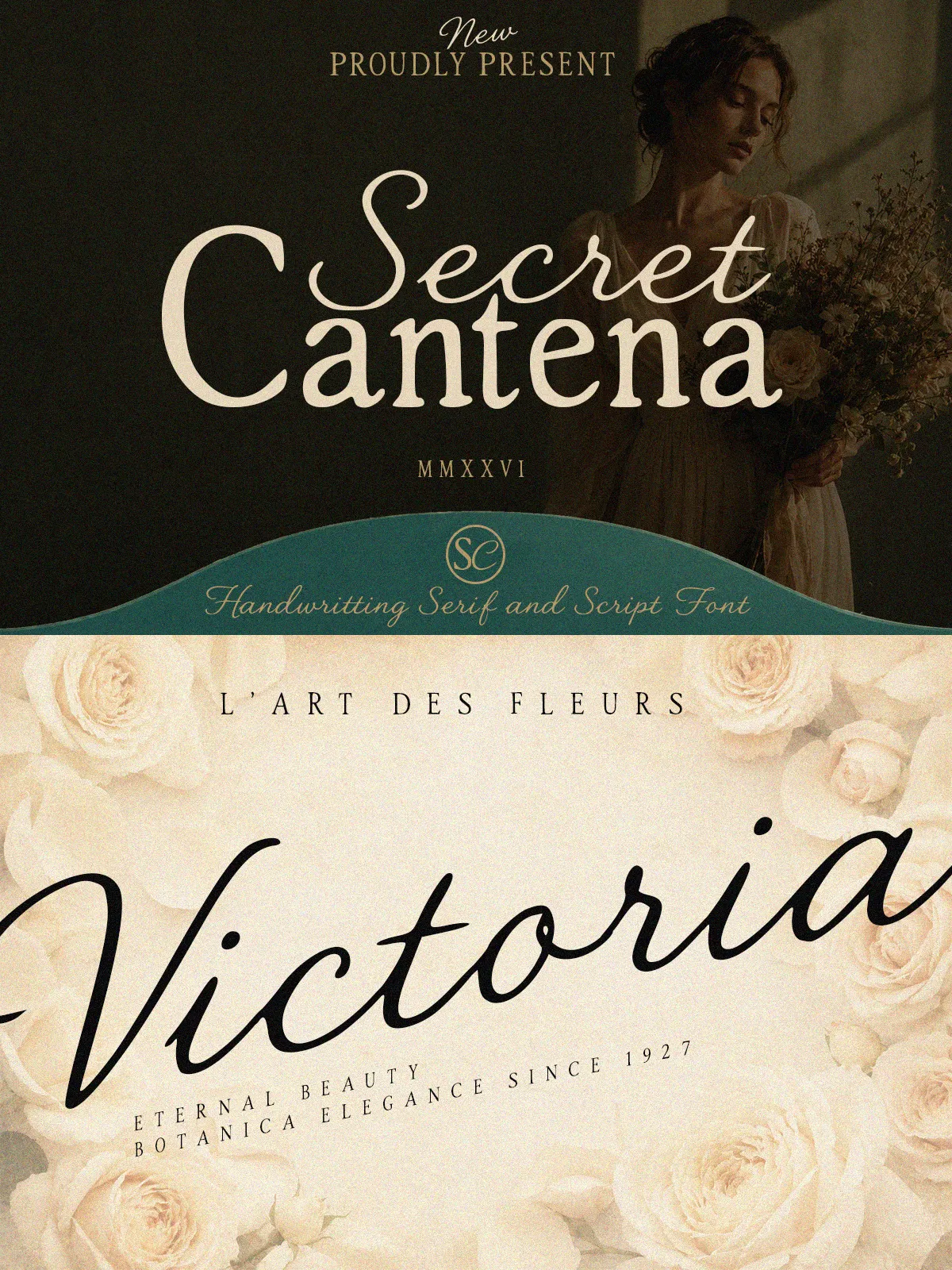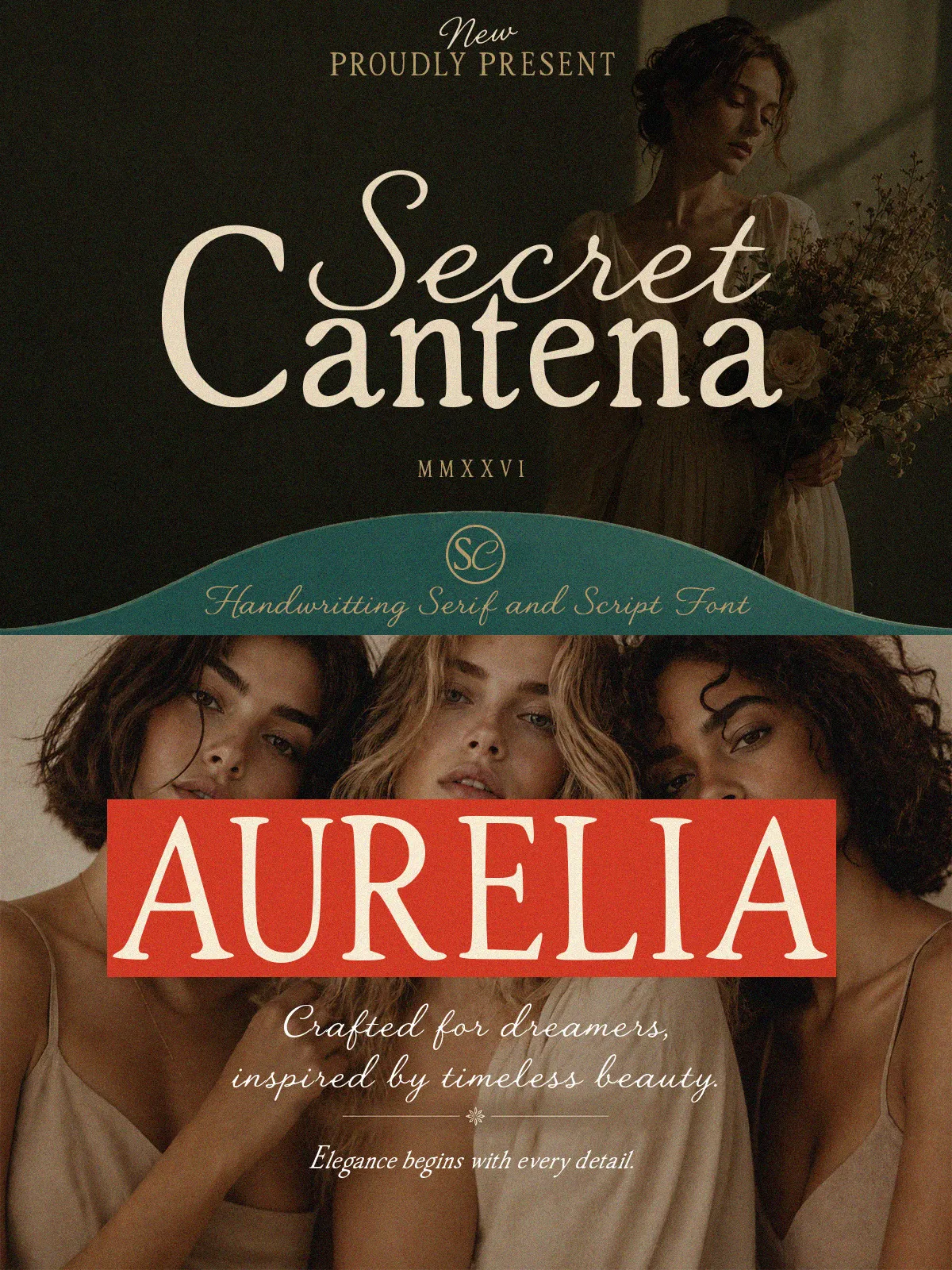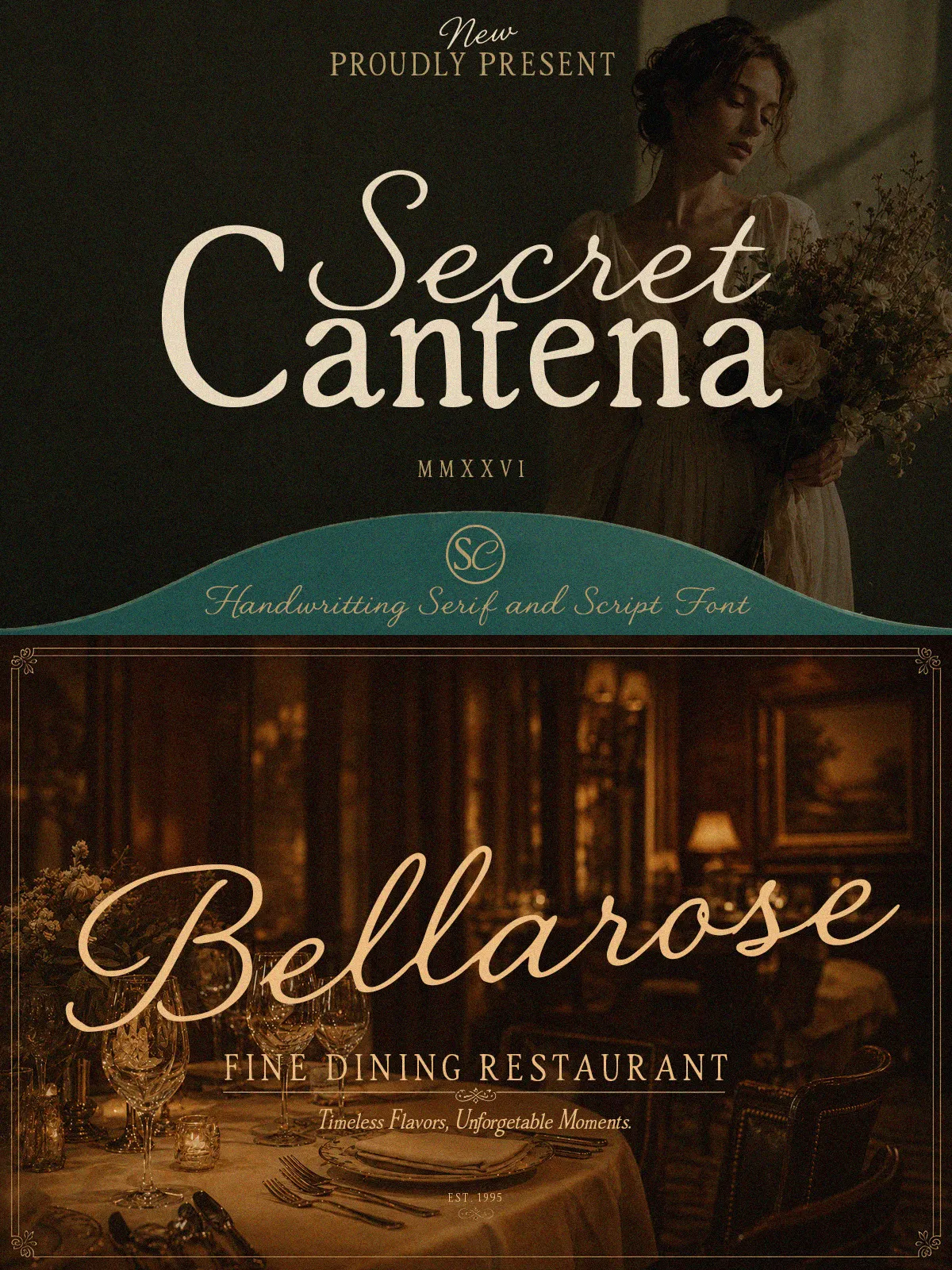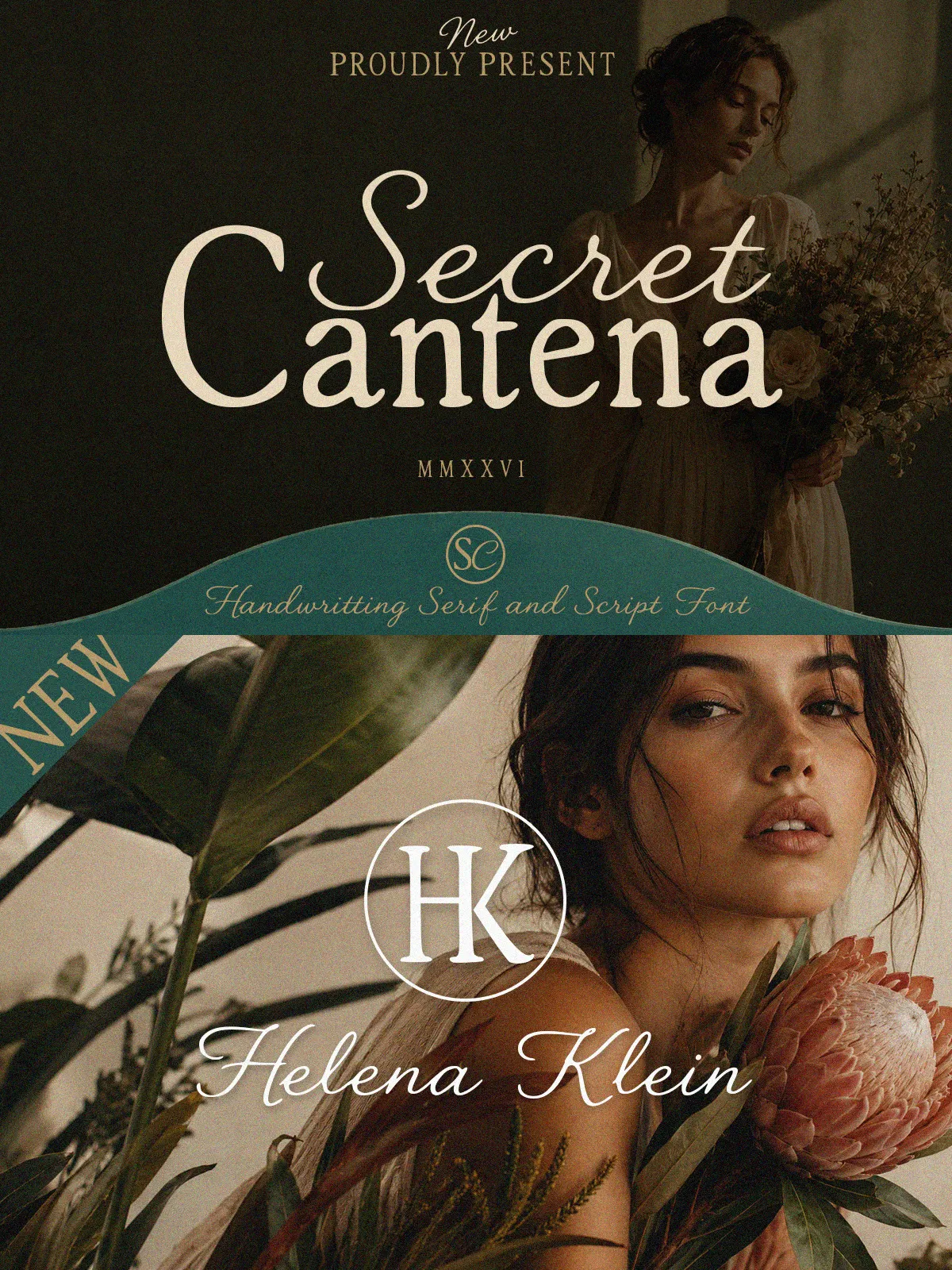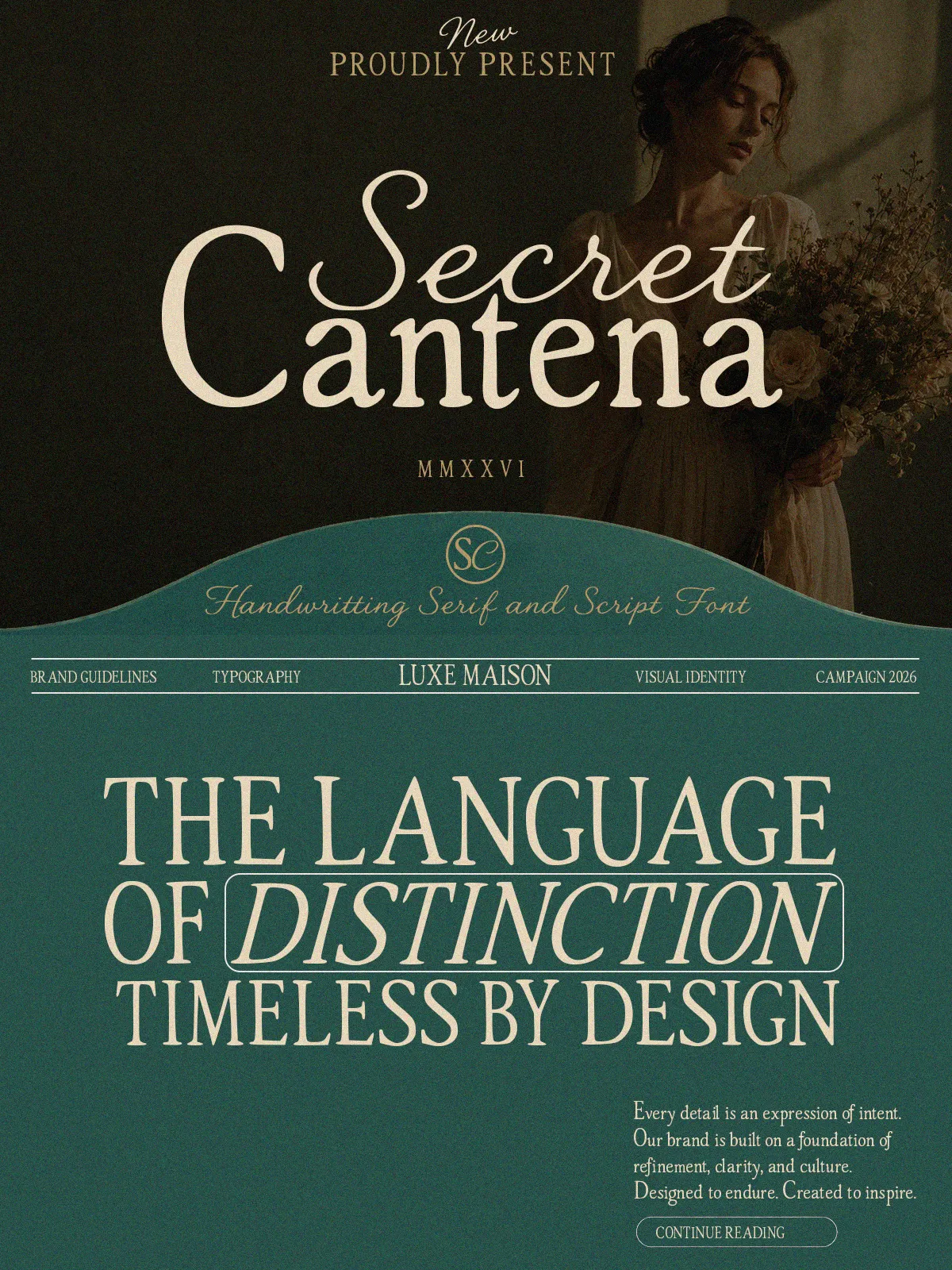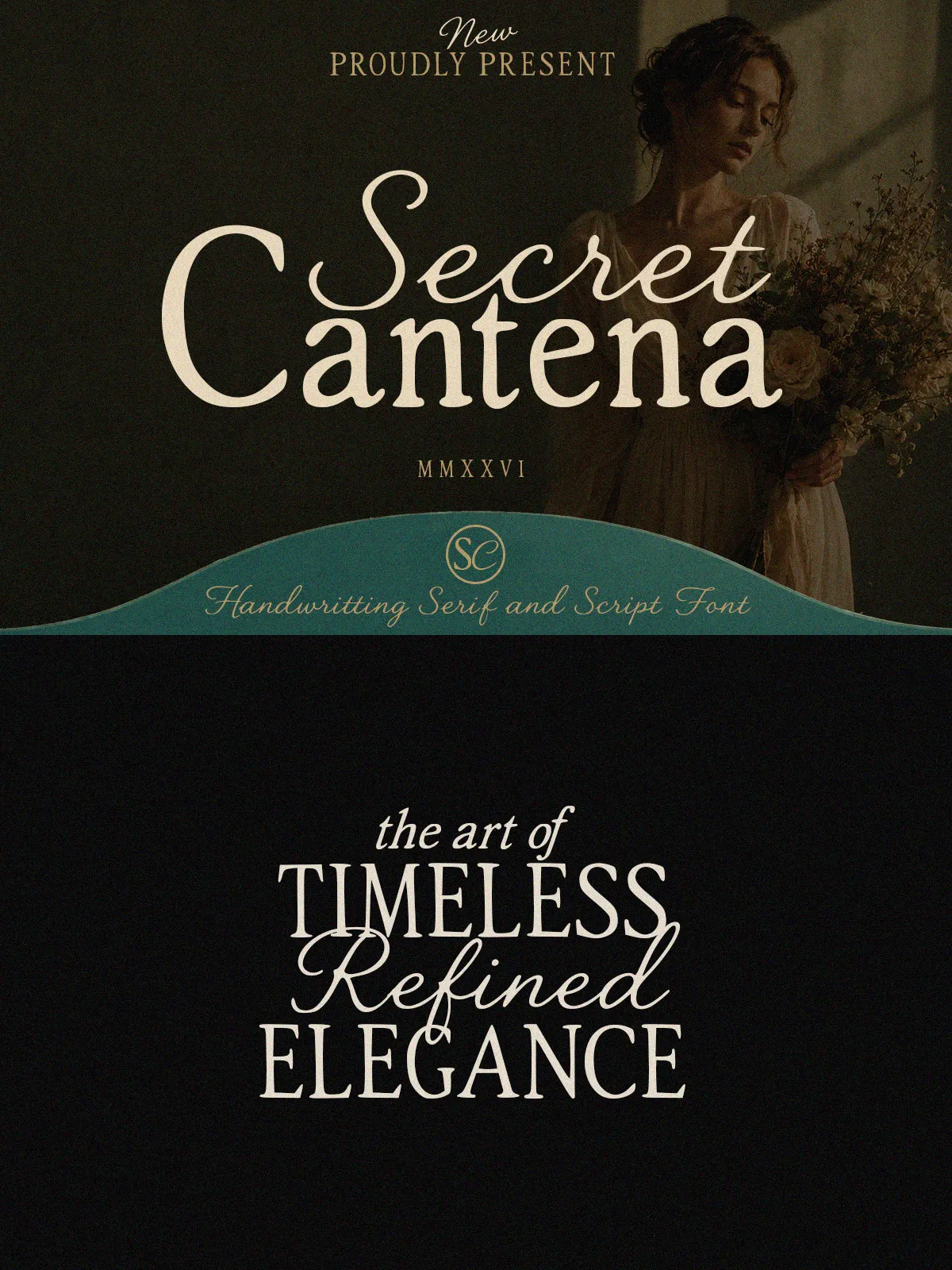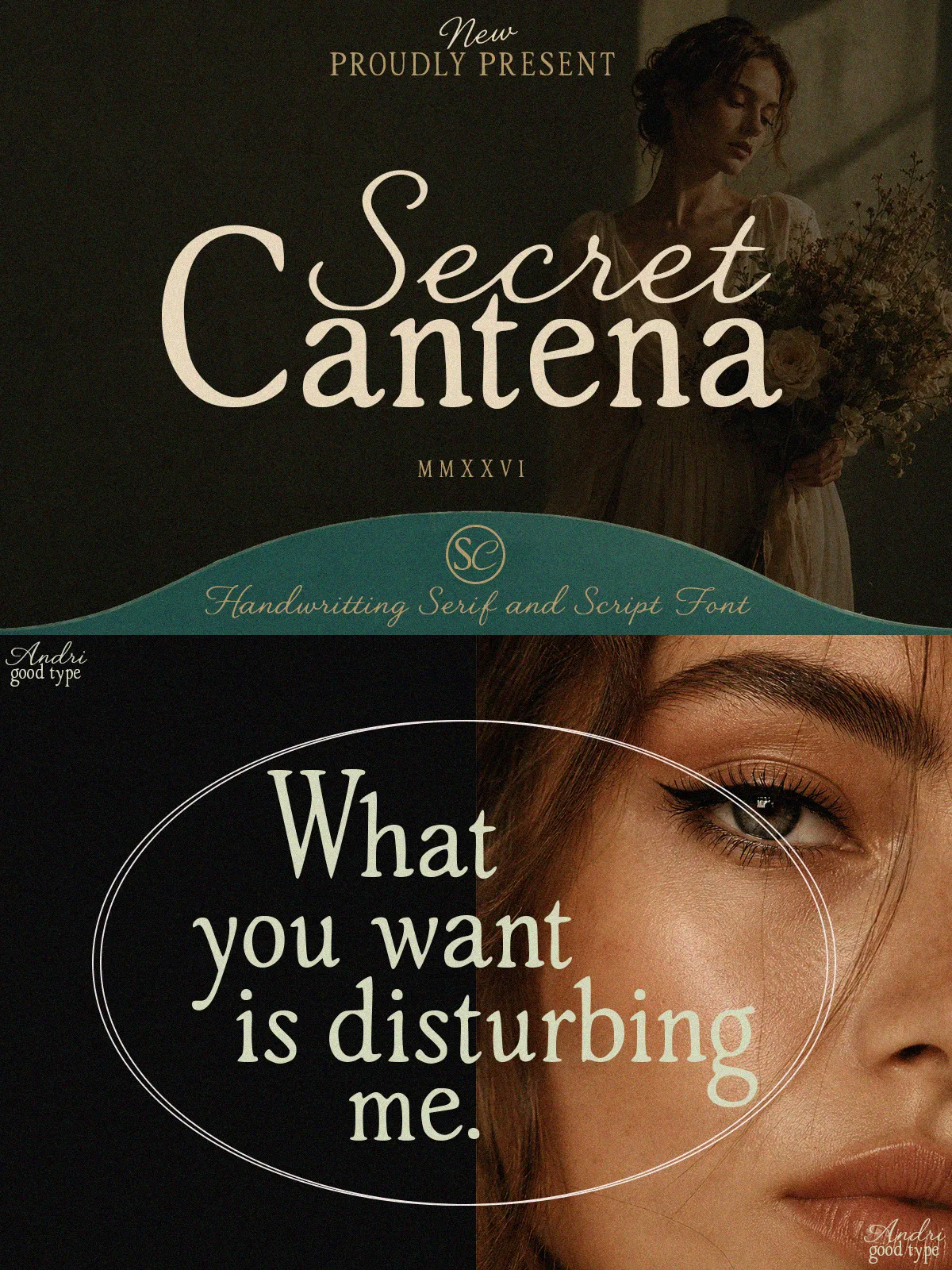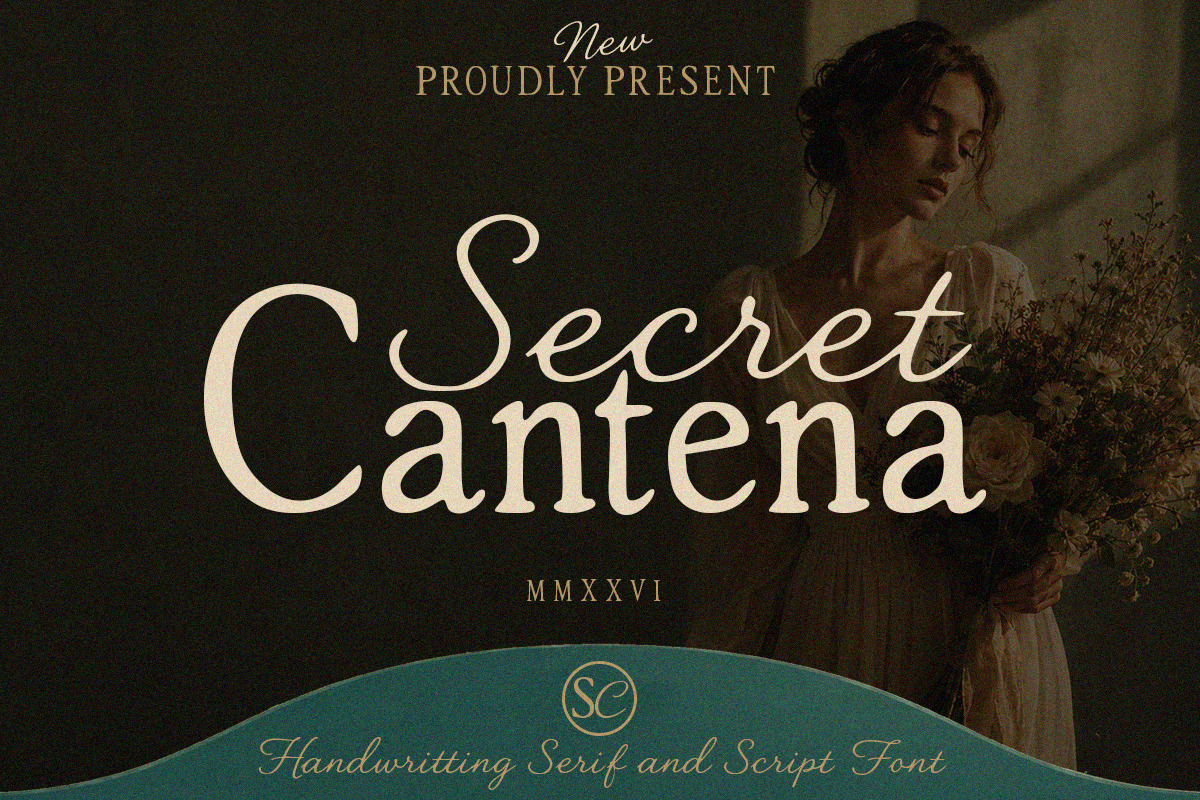
Secret Cantena presents a thoughtfully paired serif and handwriting script that fuses classical elegance with a personal, handcrafted voice. The duo communicates warmth and refinement while remaining highly usable across contemporary design contexts. Designed to perform in both expressive display roles and supportive typographic systems, Secret Cantena empowers designers to craft cohesive, emotionally resonant identities and collateral.
Serif: Refined and Timeless
The serif member of Secret Cantena emphasizes balanced proportions, subtle contrast, and graceful terminals that anchor headlines and body text with a timeless editorial tone. It delivers readable, confident letterforms that translate well at a range of sizes — from elegant logotypes to supportive subheadings.
Script: Organic and Expressive
The handwriting script echoes authentic pen strokes, introducing organic flow, lively connections, and natural variation. It injects personality into designs, offering alternate glyphs, swashes, and contextual forms that let you tailor the voice from restrained sophistication to exuberant romance.
Branding & Logos
Pair the serif for nameplates and the script for signatures or taglines to create a premium brand lockup that balances authority with human warmth. Secret Cantena helps luxury, boutique, and lifestyle brands articulate a distinctive identity.
Weddings & Invitations
Use the script as a decorative headline or calligraphic flourish, supported by the serif for event details. The combination yields invitations that feel personal and thoughtfully composed.
Editorial & Book Covers
Apply the serif for strong editorial headlines and running copy; introduce the script for pull quotes, section openers, or author signatures, enhancing the tactile, curated mood of magazines and covers.
- OpenType features: discretionary ligatures, contextual alternates, swashes, and stylistic sets for the script.
- Robust character set: uppercase, lowercase, numerals, punctuation, and diacritical marks.
- Multilingual Latin support for extended language coverage.
- Multiple weights and alternate forms to customize tone and hierarchy.
- Kerning and spacing optimized for harmonious pairings at display sizes.
Spacing, Tracking & Legibility
For headlines, tighten tracking slightly to reinforce the serif’s editorial voice; for the script, adjust kerning and enable contextual alternates to maintain natural connections. Increase line-height for long blocks of script to preserve legibility. Test printing at final scales to ensure stroke fidelity in production processes such as letterpress, foil stamping, or embossing.
Color and Composition
Let the serif carry the primary typographic weight and use the script as an accent to draw attention to names, dates, or signature elements. Neutral palettes with a single accent color emphasize Secret Cantena’s elegance; metallics and textured substrates amplify its premium presence.
Hierarchy and Scale
Reserve the script for display sizes and focal phrases; use the serif for supporting information and longer passages. Combine weight contrast and size to create a clear visual hierarchy that guides the viewer while maintaining a polished, integrated look.